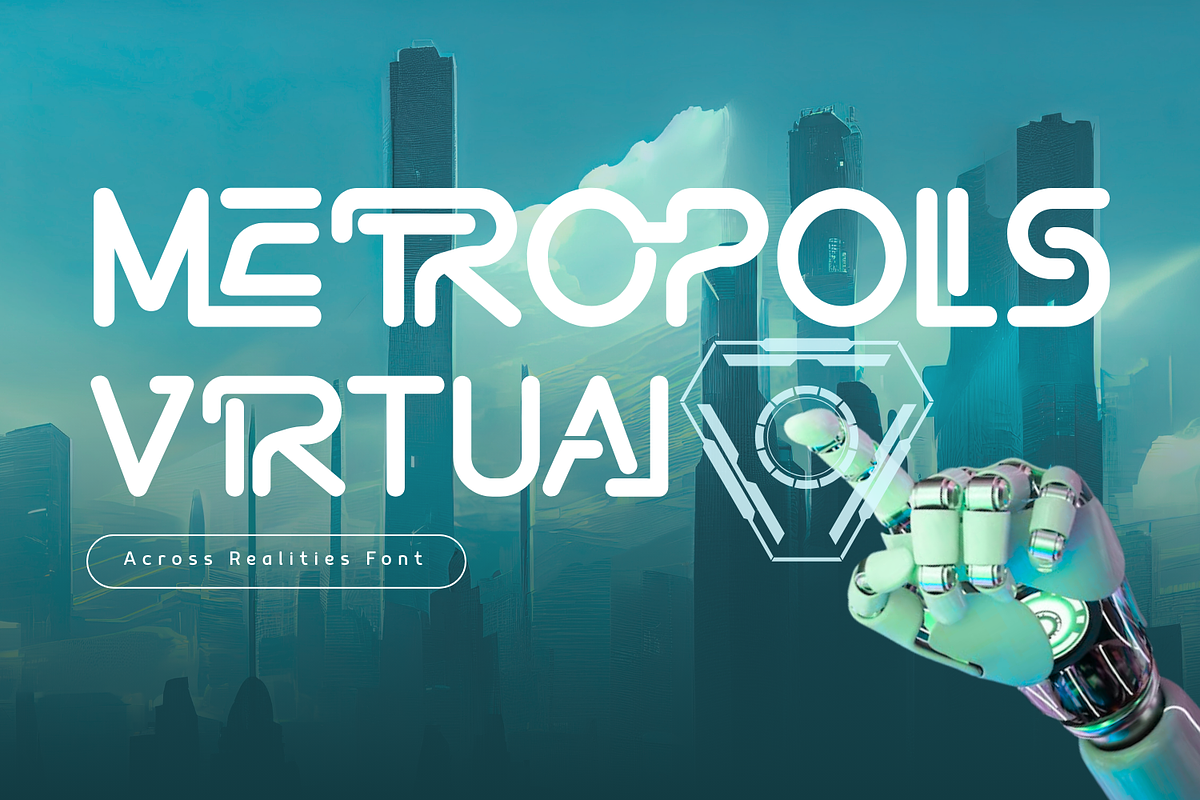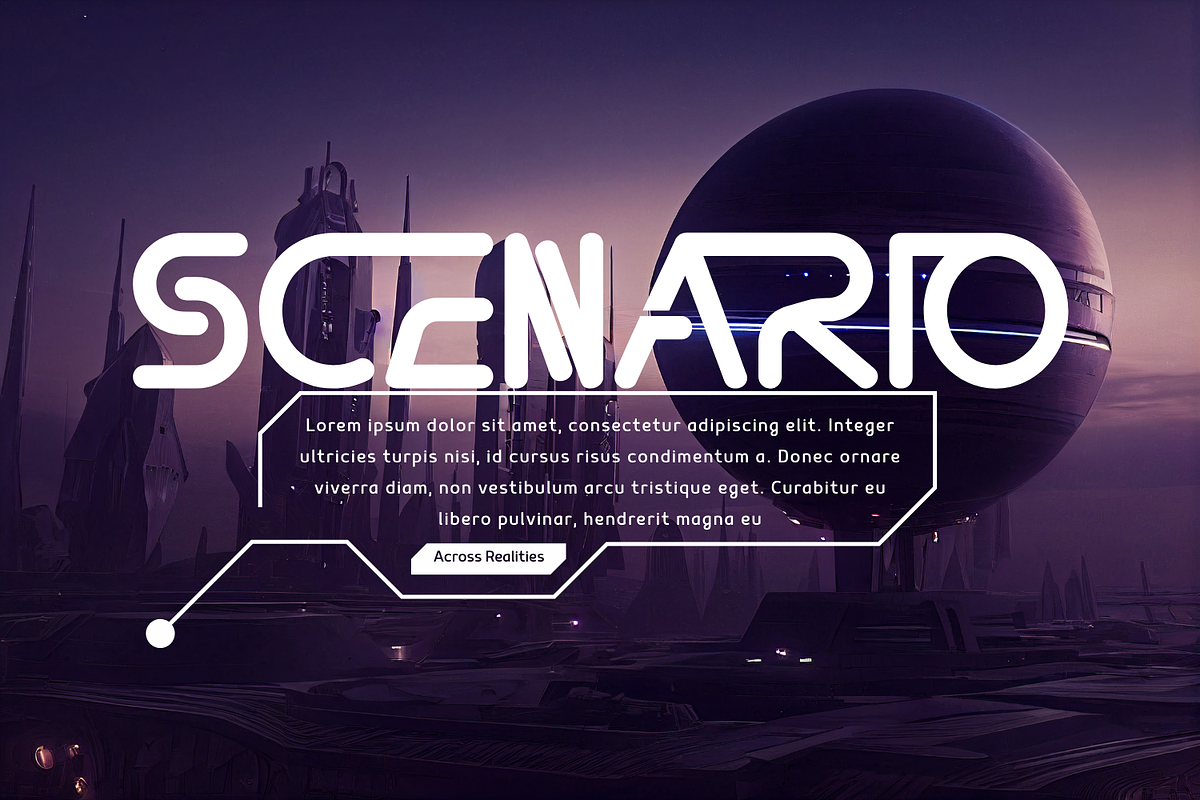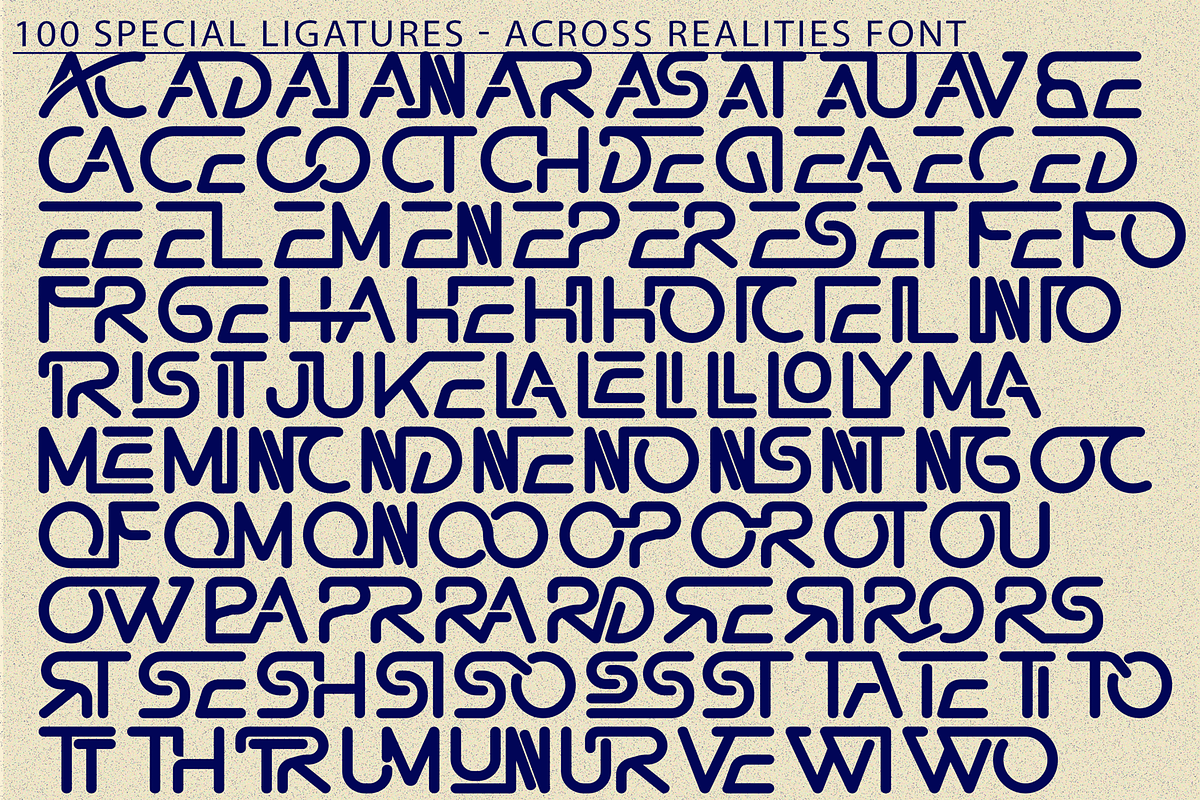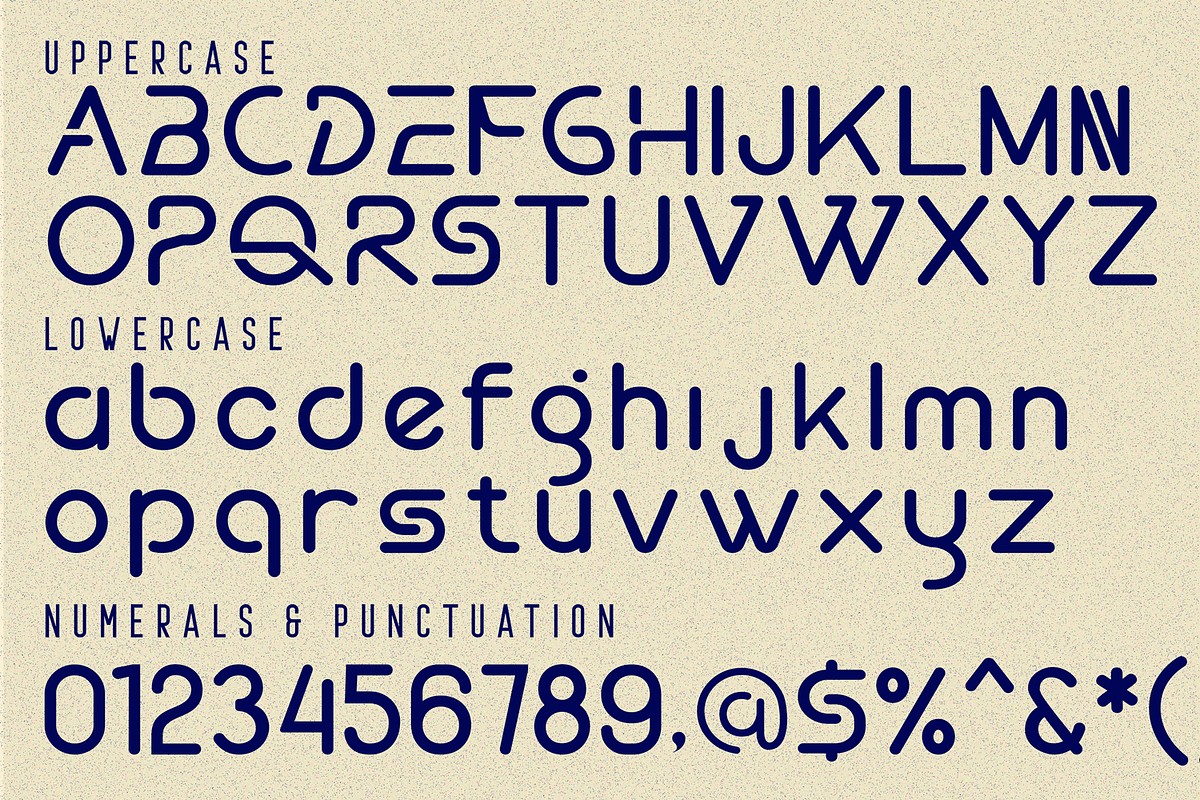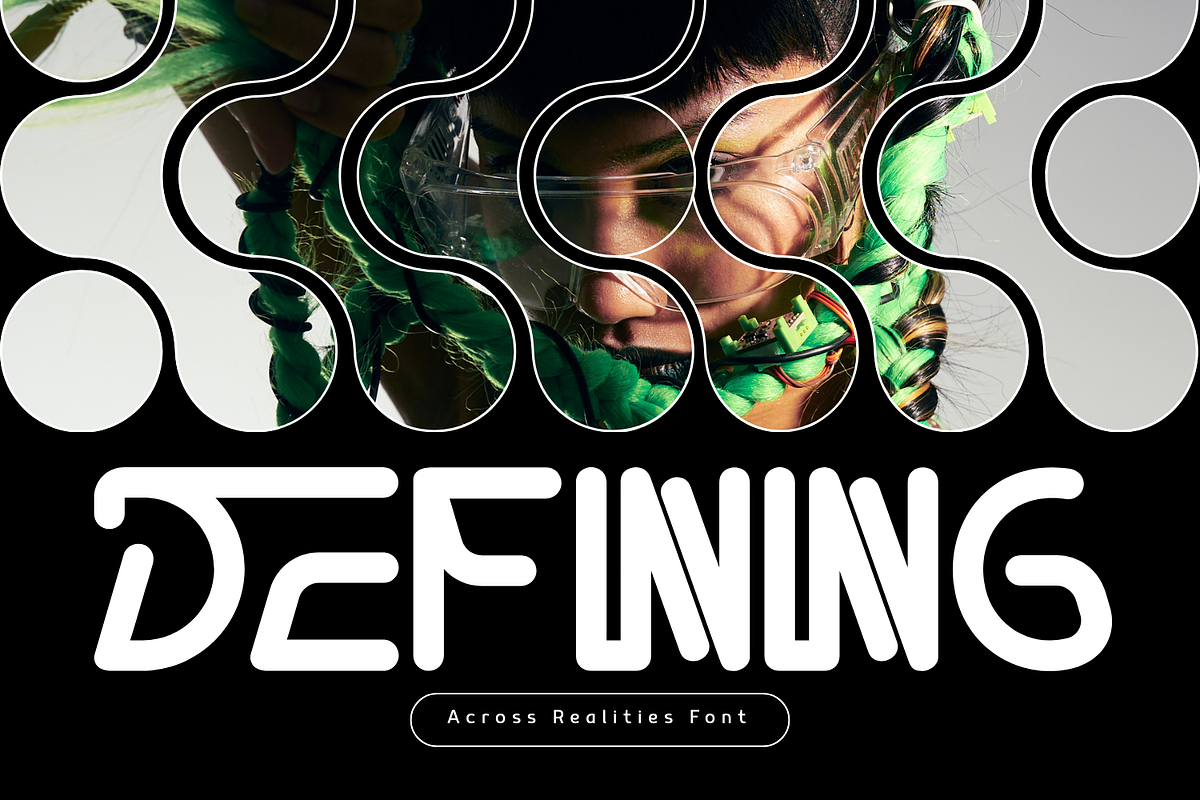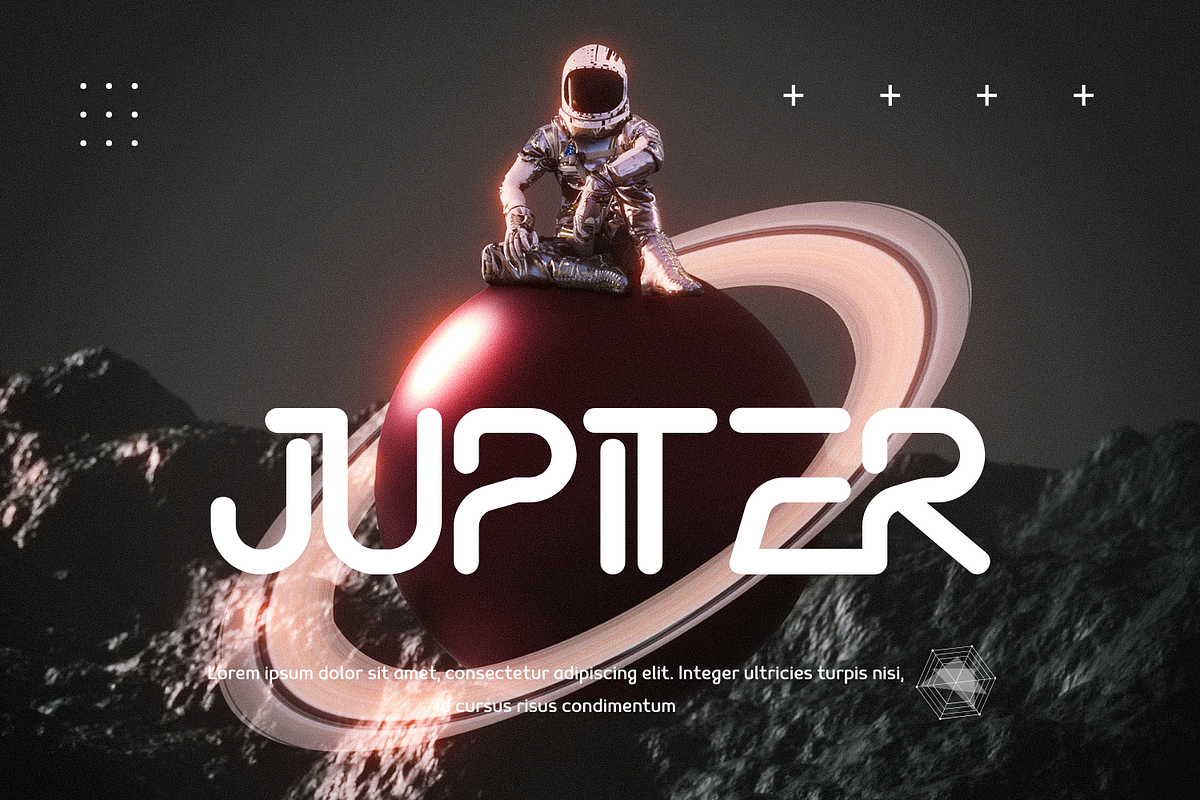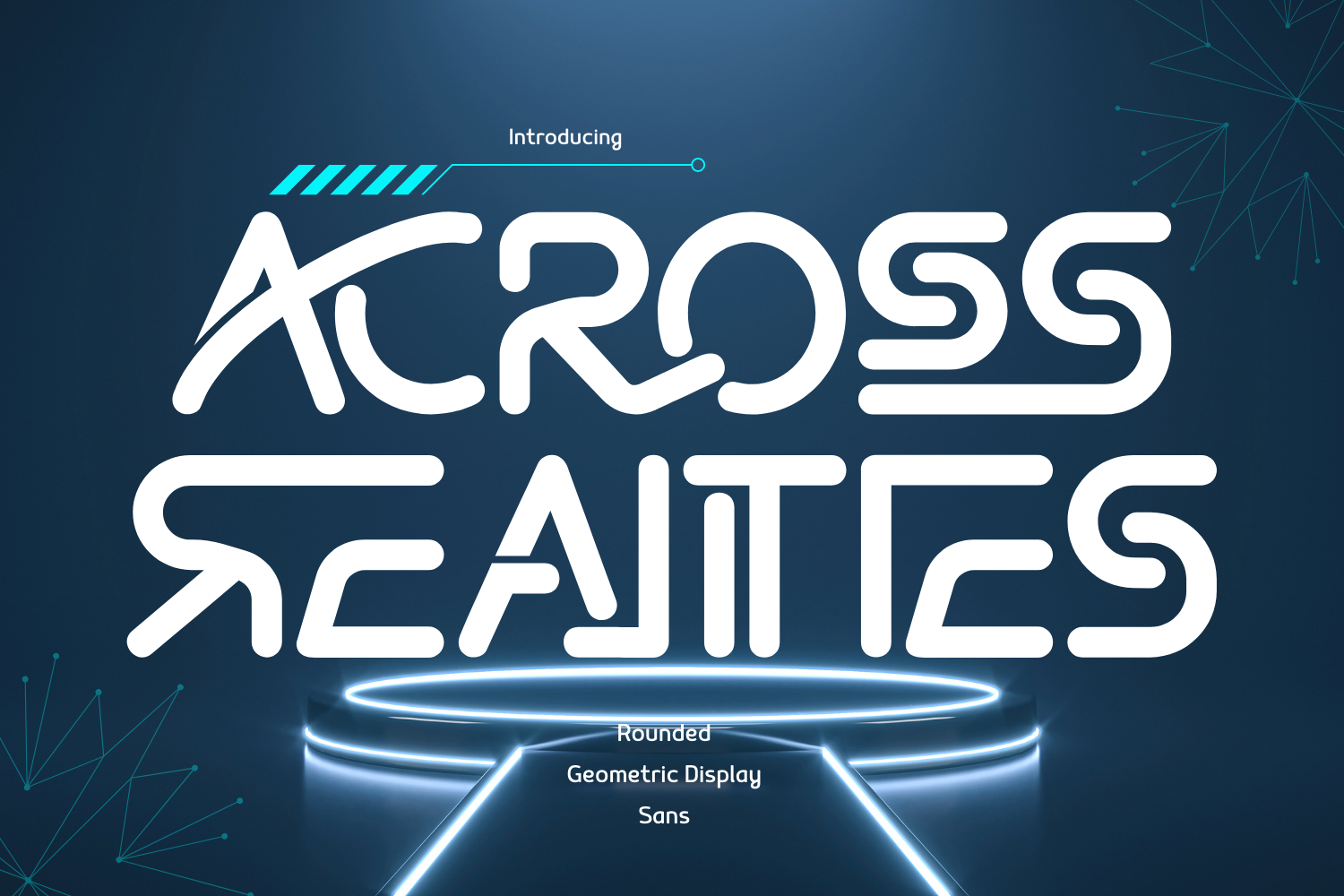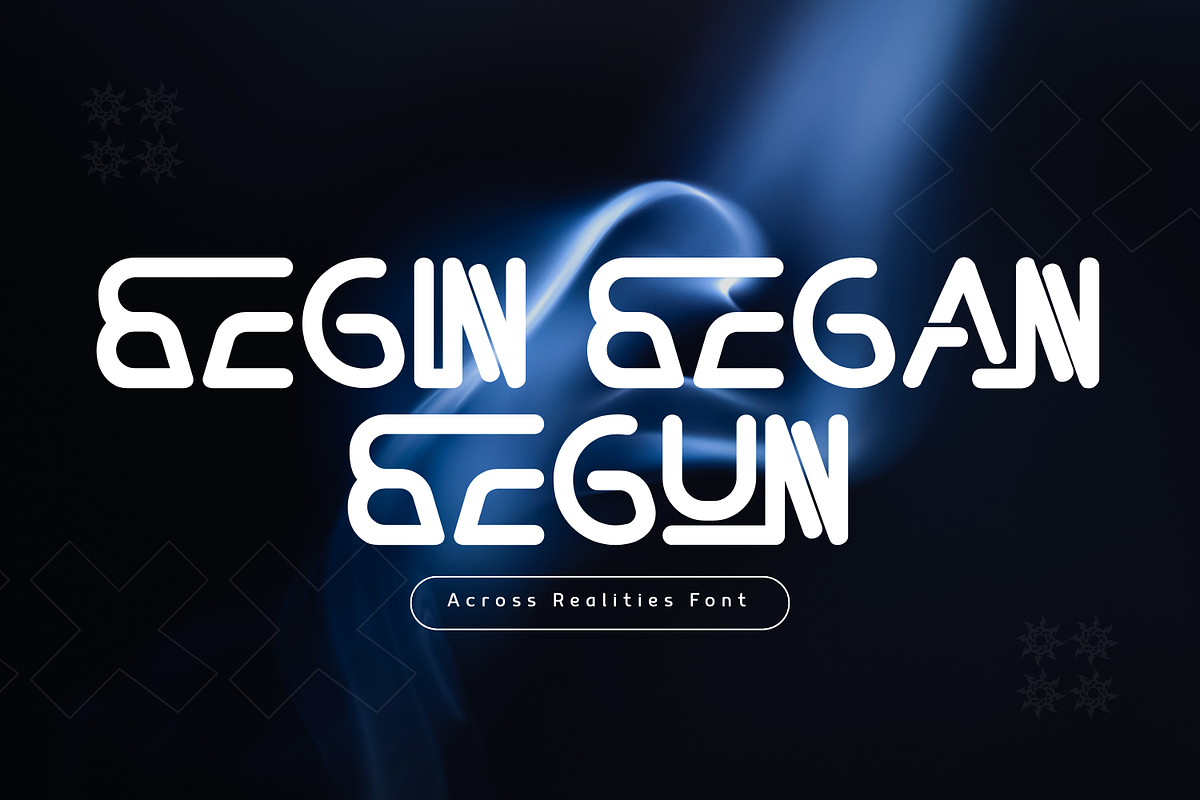
ACROSS REALITIES - FUTURISTIC FONT
ACROSS REALITIES - FUTURISTIC FONT, a cutting-edge display font that redefines the intersection of technology and typography. Inspired by circuit board pathways and futuristic architectural lines, this font is engineered for projects that demand a bold, high-tech identity. ACROSS REALITIES features a consistent monoline weight and unique interlocking ligatures that create a seamless, liquid-metal flow between characters. Its sleek, rounded terminals and strategic stencil gaps make it the ultimate choice for sci-fi movie titles, esports branding, tech startups, and cyber-themed streetwear.
🔤Features:
- Uppercase & Lowercase Letters
- Around 100 Special Ligatures & Alternates
- Accented Characters for multilingual support
🔤About 100 ligatures combined with Stylistic Alternates Font:
AC AD AL AN AR AS AT AU AV BE CA CE CH CO CT DE DI EA EC ED EE EL EM EN EP ER ES ET FE FO FR GE HA HE HI HO IE IC IL IN IO IR IS IT JU KE LA LE LI LL LO LY MA ME MI NC ND NE NG NO NT NS OC OF OM ON OO OP OR OT OU OW PA PR RA RD RE RI RO RS RT SE SH SI SO SS ST TA TE TH TI TO TR TT UM UN UR VE WI WO